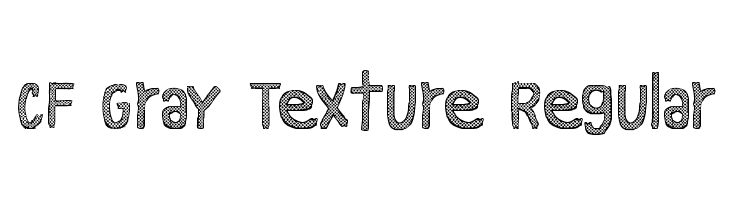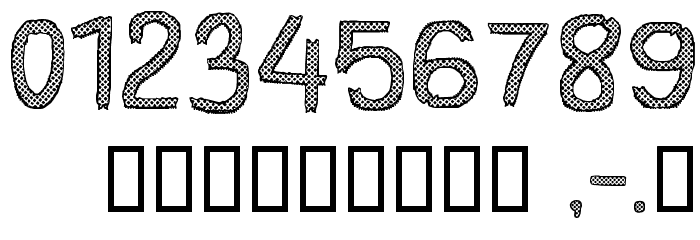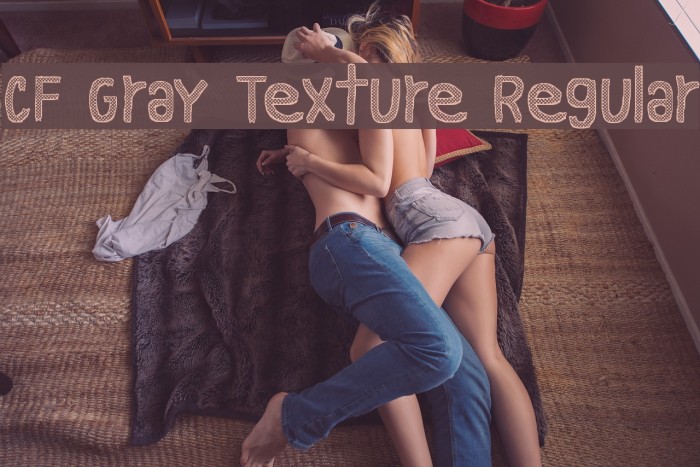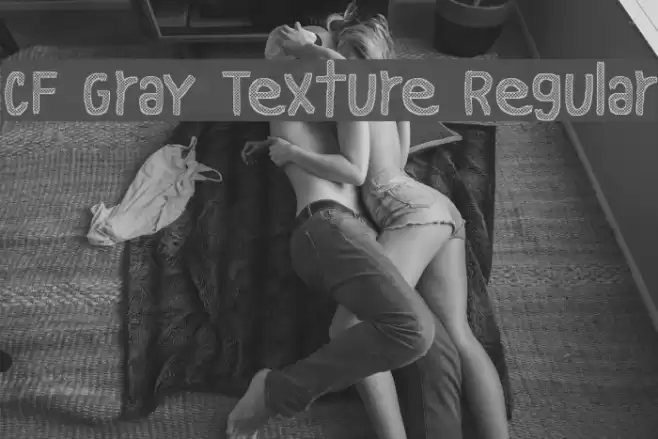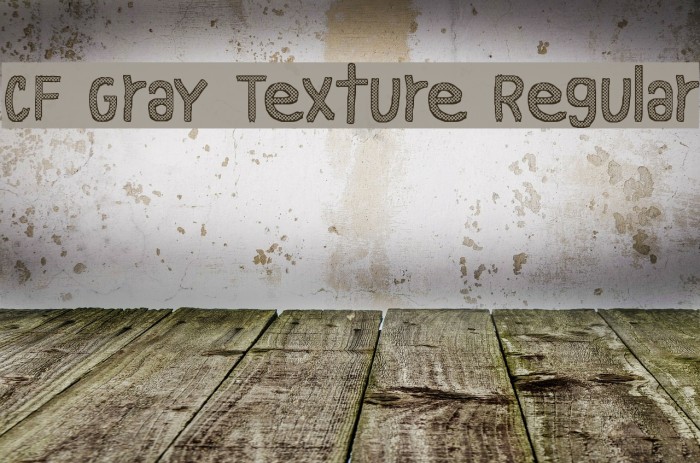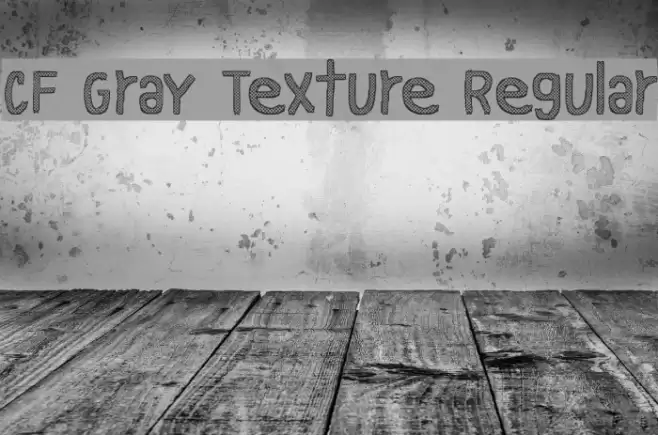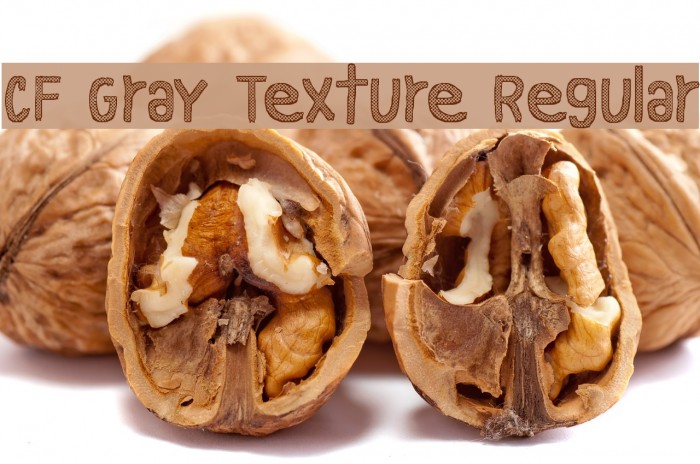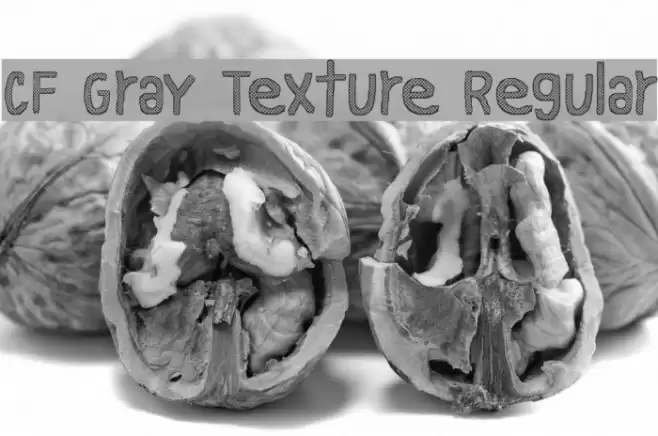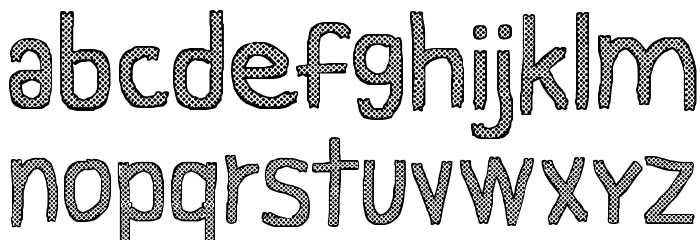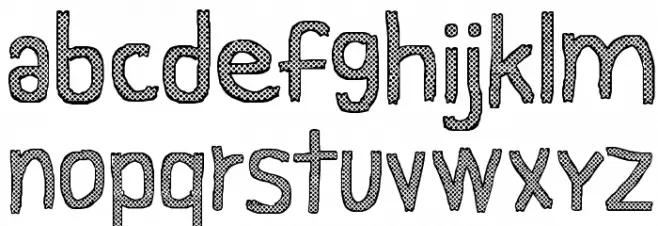
CF Gray Texture Regular Font
CF Gray Texture Regular Description
This font features a playful, textured design with a dotted pattern filling each character. The letters are bold and slightly irregular, giving them a hand-drawn appearance. The uppercase and lowercase letters maintain a consistent style, with rounded edges and a casual feel. The numbers and special characters follow the same textured pattern, ensuring a cohesive look across all elements. This font is ideal for projects that require a fun and informal touch, such as children's books, posters, or creative branding.
| Proposed Projects | Ideal for children's books, playful posters, creative branding, and informal invitations. |